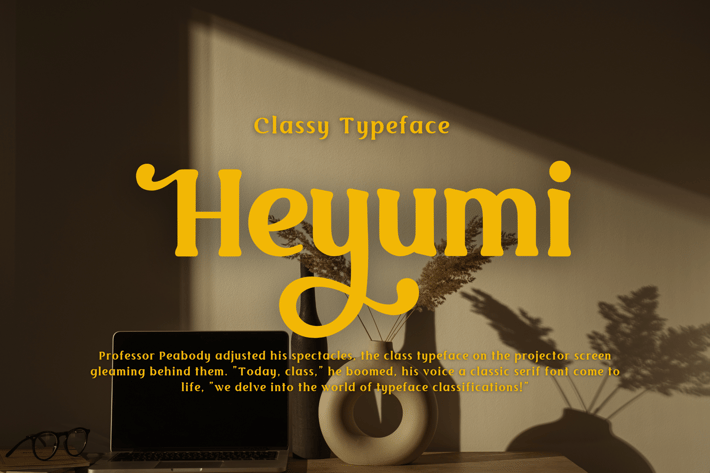
Heyumi | Classy Typeface
For your creative project, use the Heyumi-themed Classy Typeface font. Classy Typeface font is appropriate for every kind of design you produce, including greeting cards, posters, logos, and branding.